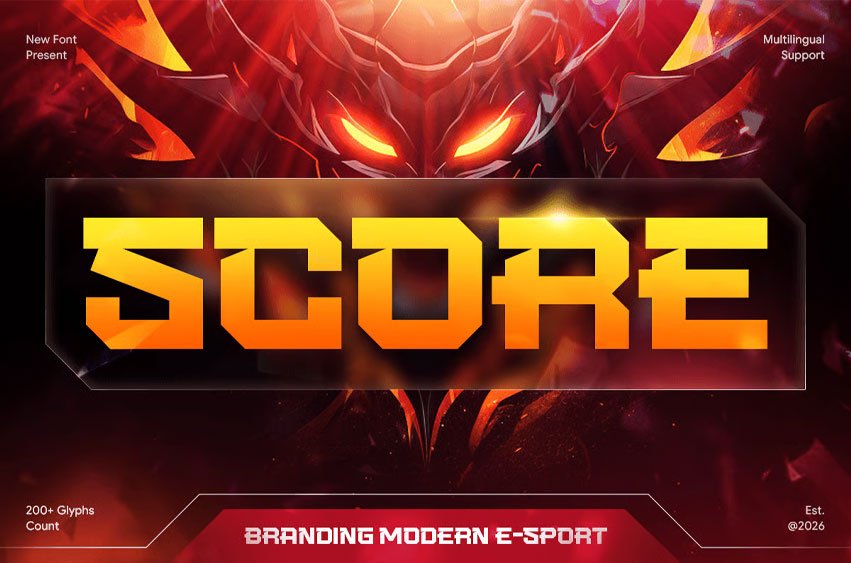
Score Font is a modern e-sport font designed to deliver energy, competitiveness, and a bold gaming identity. Featuring sharp letterforms, dynamic angles, and a powerful modern style, SCORE is perfect for esports logos, gaming teams, streaming graphics, tournament branding, digital campaigns, and entertainment-focused design projects.
Combining futuristic gaming aesthetics with professional branding elements, SCORE creates a strong and memorable visual presence. Its aggressive yet clean structure ensures excellent readability while maintaining a fast-paced and competitive appearance, making it ideal for esports organizations, gaming communities, content creators, and digital media brands.
SCORE – Branding Modern E-Sport Font Features:
- Modern esports style with dynamic gaming aesthetics
- Sharp letterforms and bold competitive character
- Ideal for gaming logos, teams, tournaments, and streaming visuals
- Uppercase, lowercase, numerals, and punctuation included
- Strong structure with energetic and futuristic appeal
- Perfect for esports branding, digital campaigns, and content creation
Level up your gaming identity with SCORE – the modern esports font built for competitive and impactful branding.